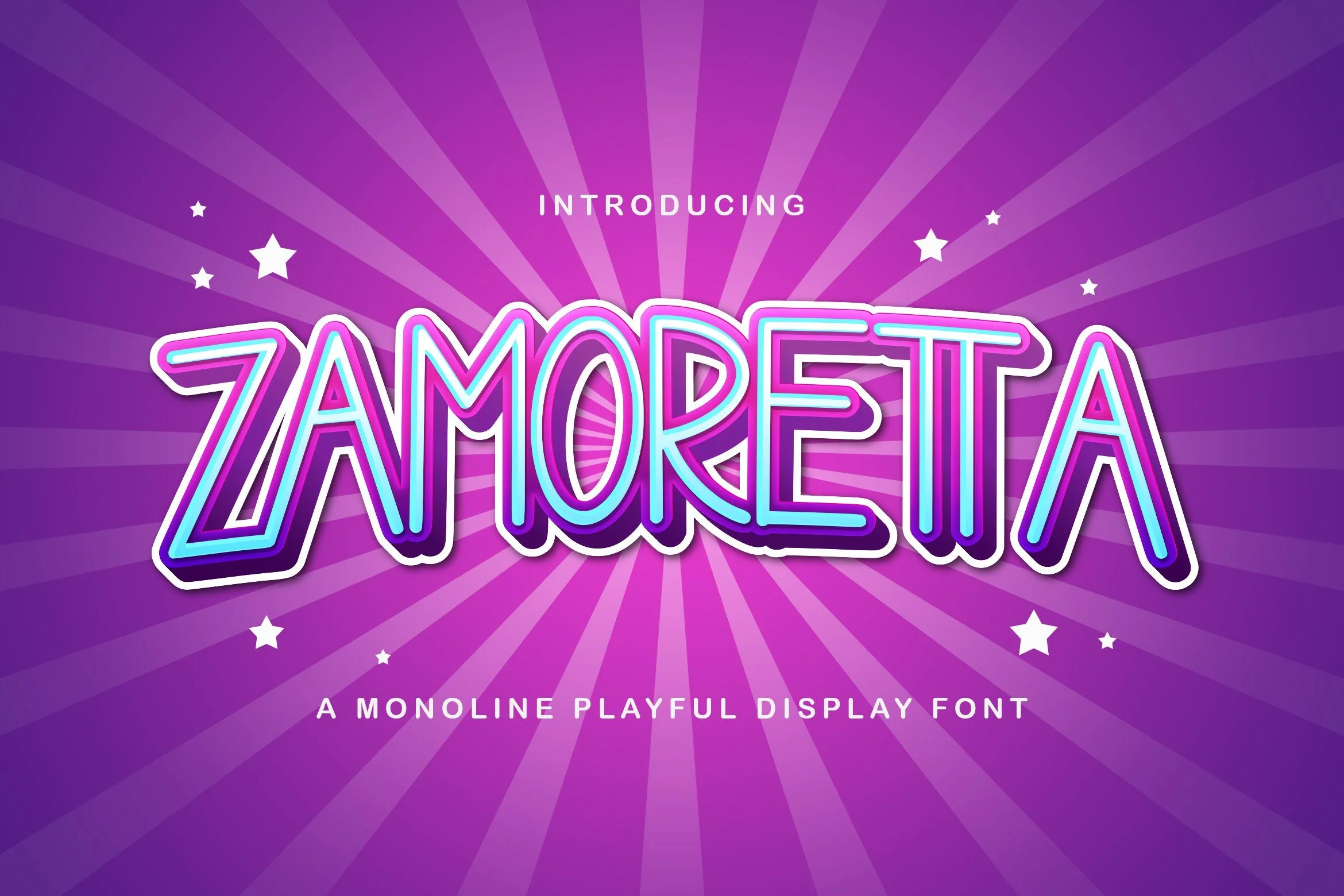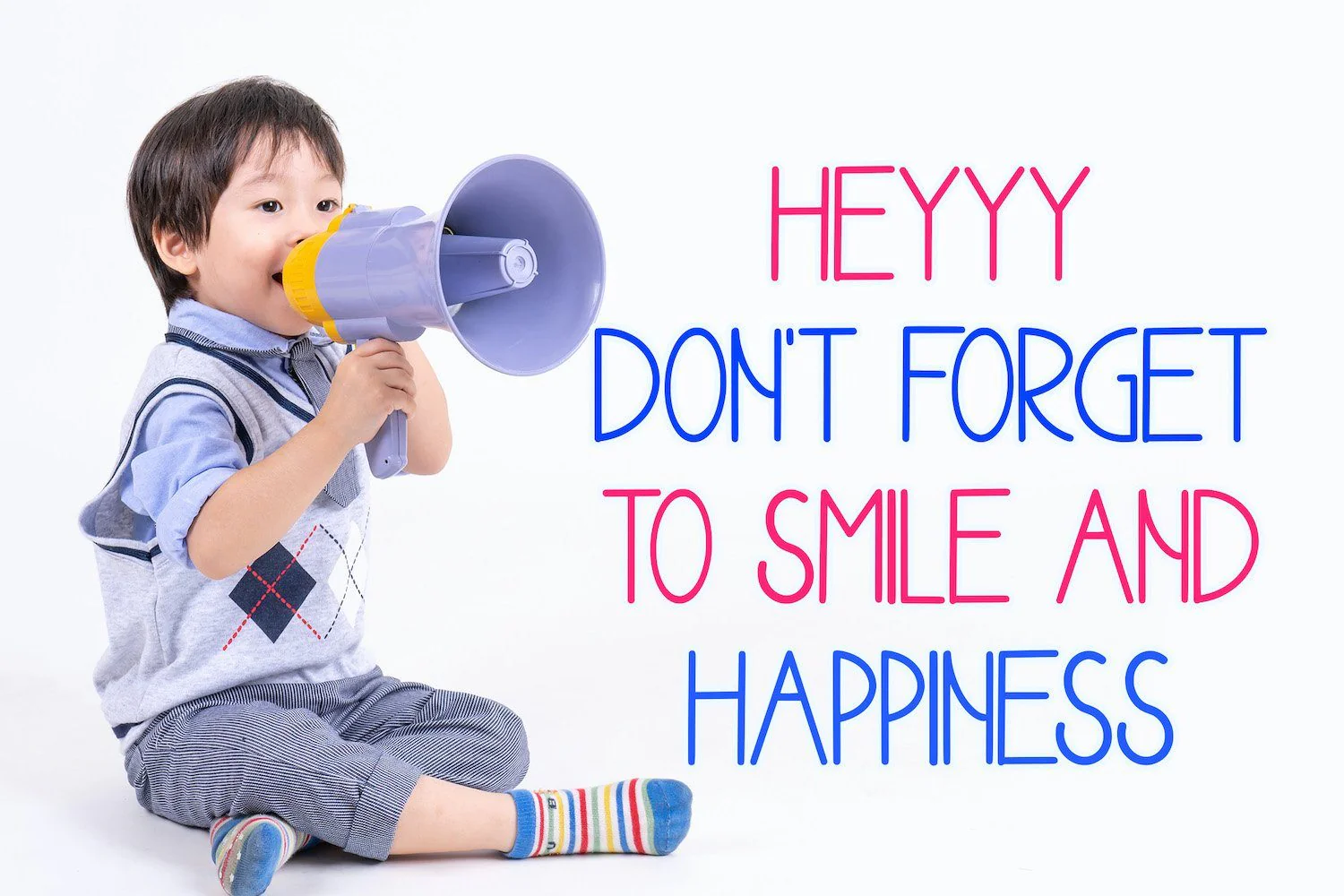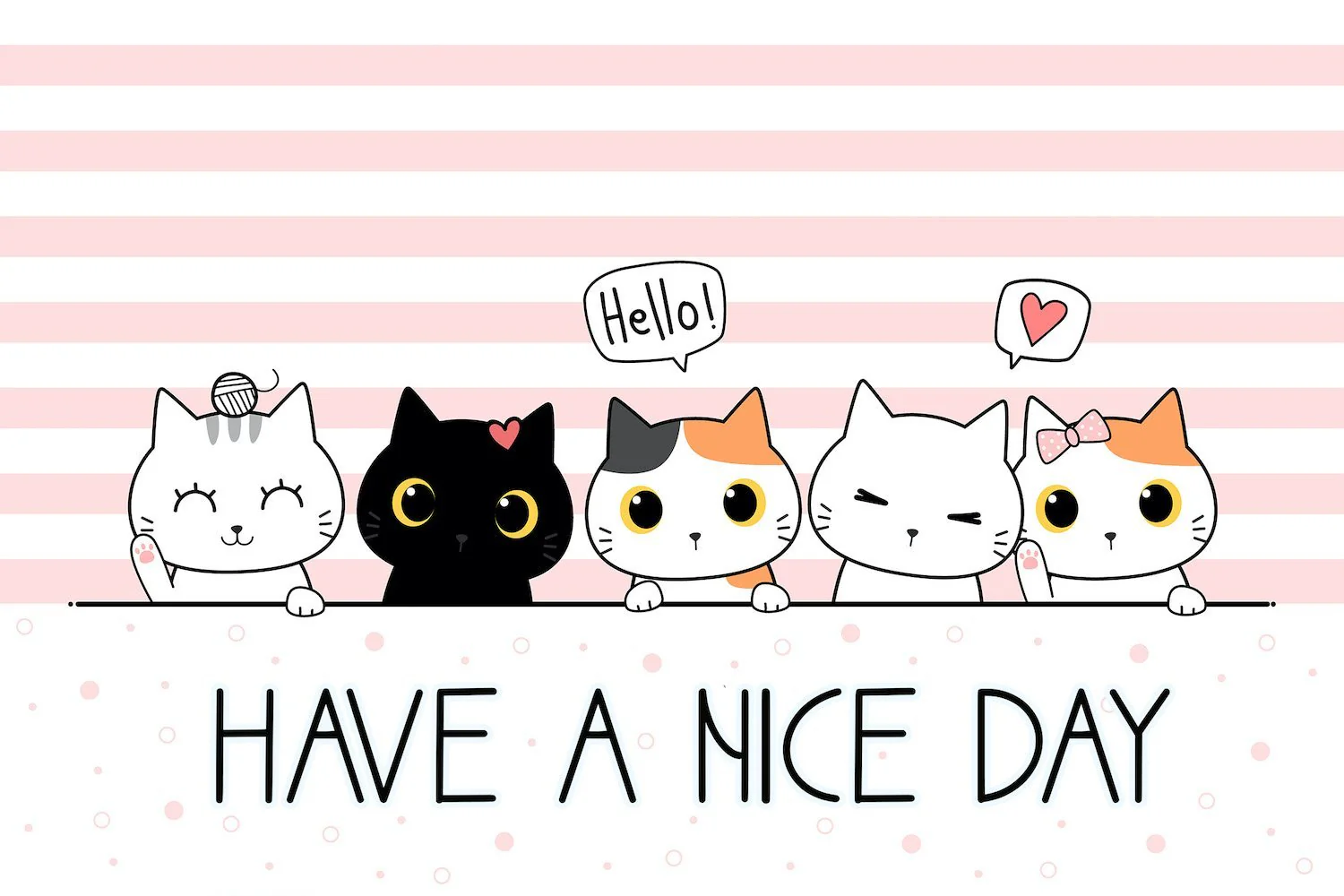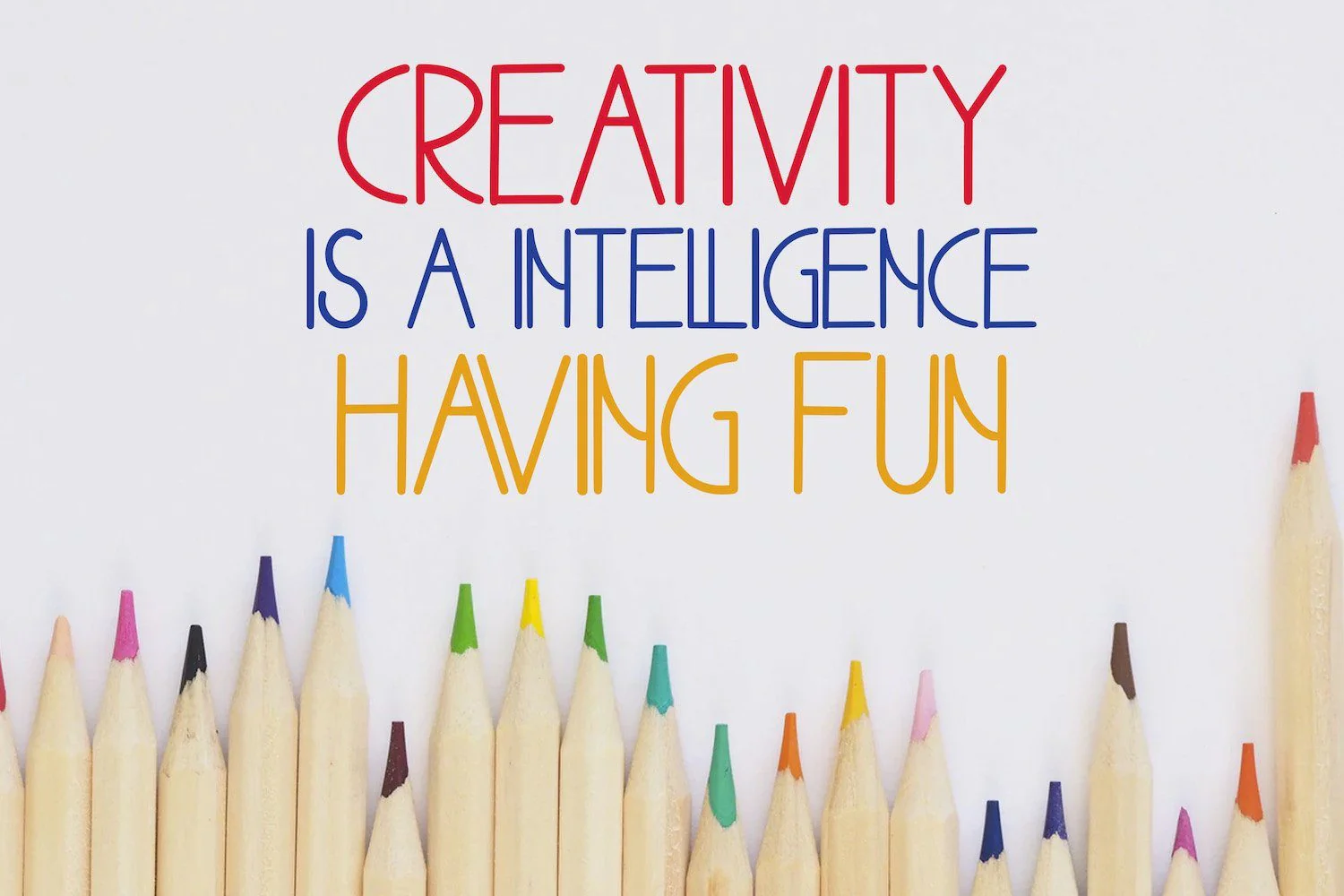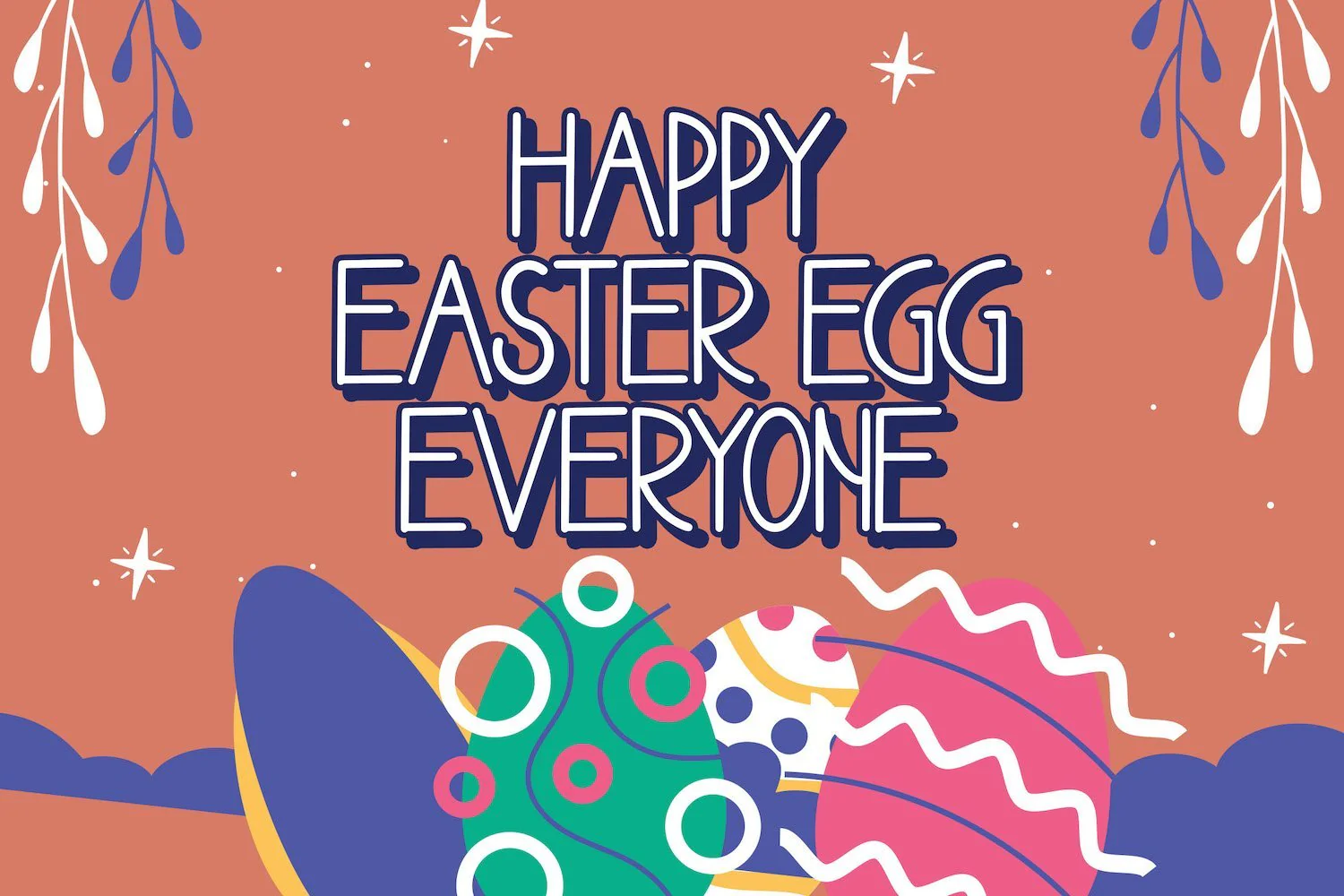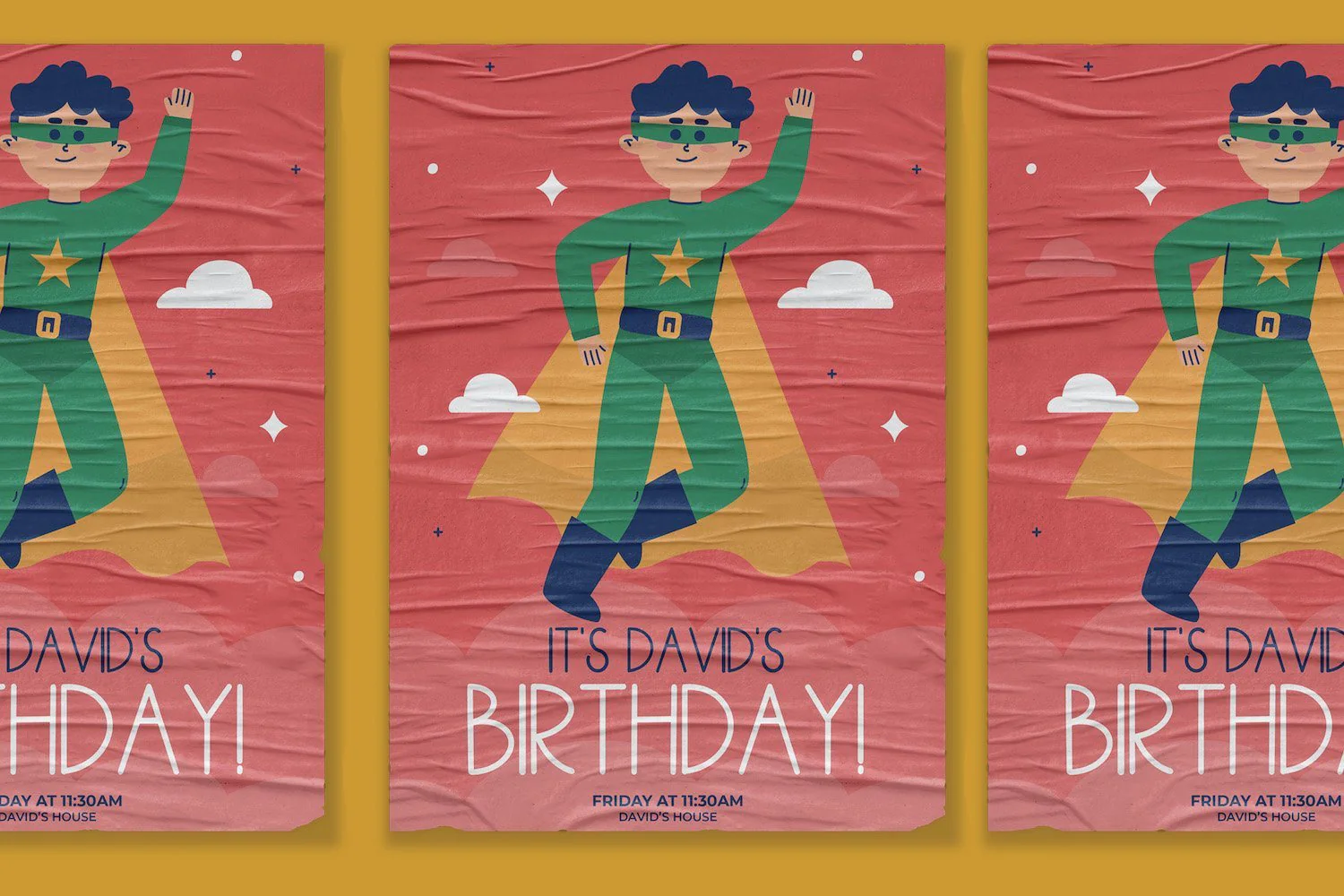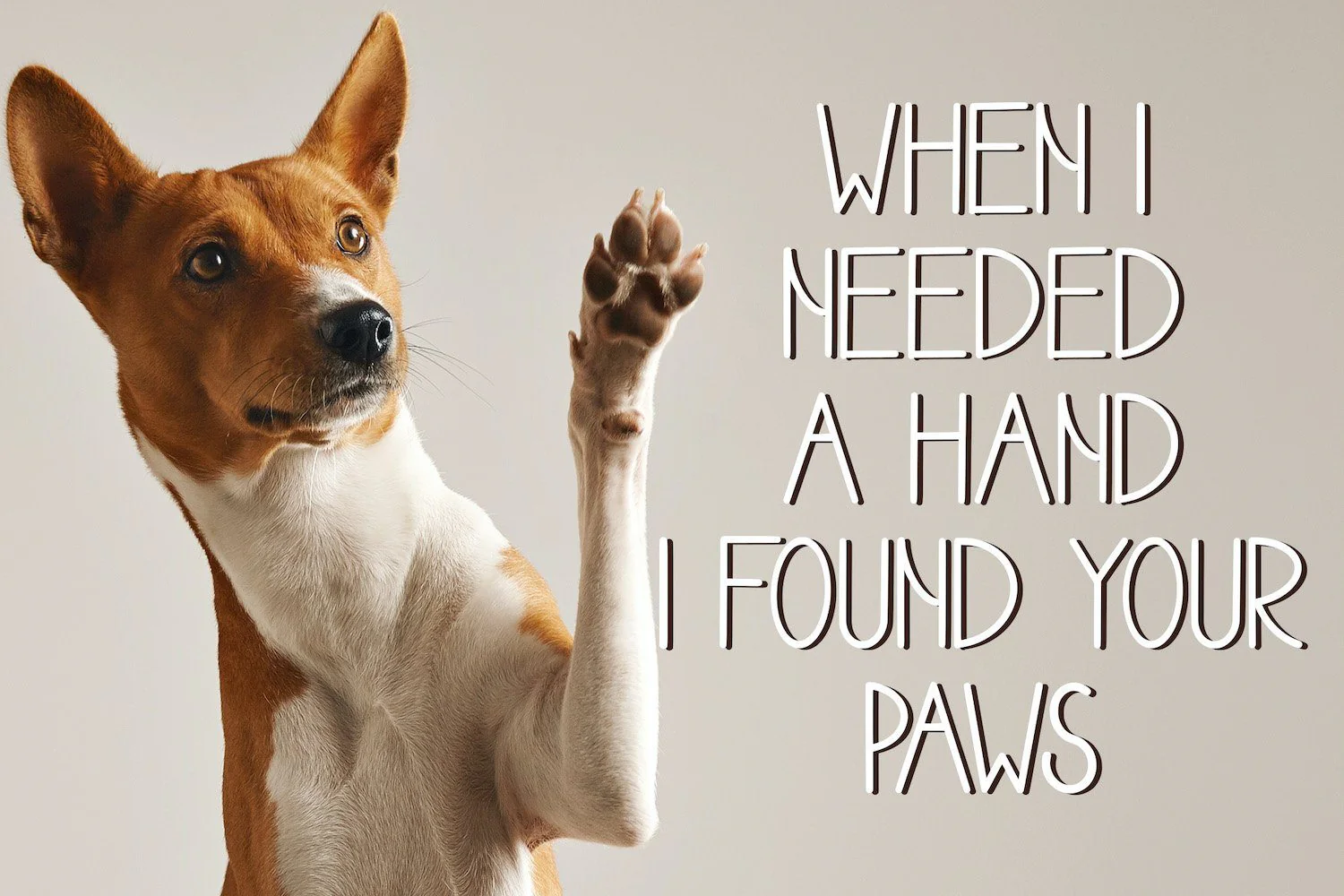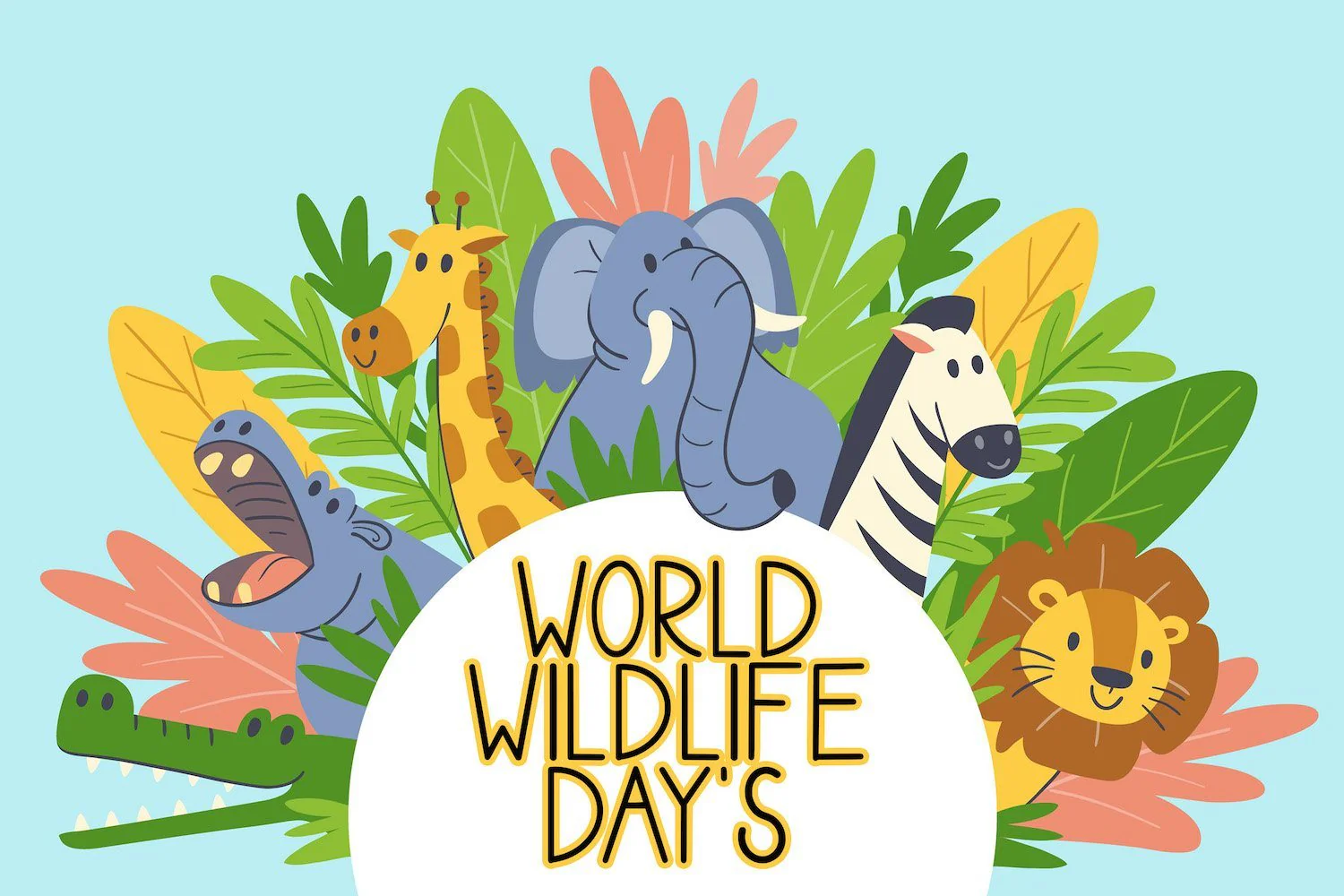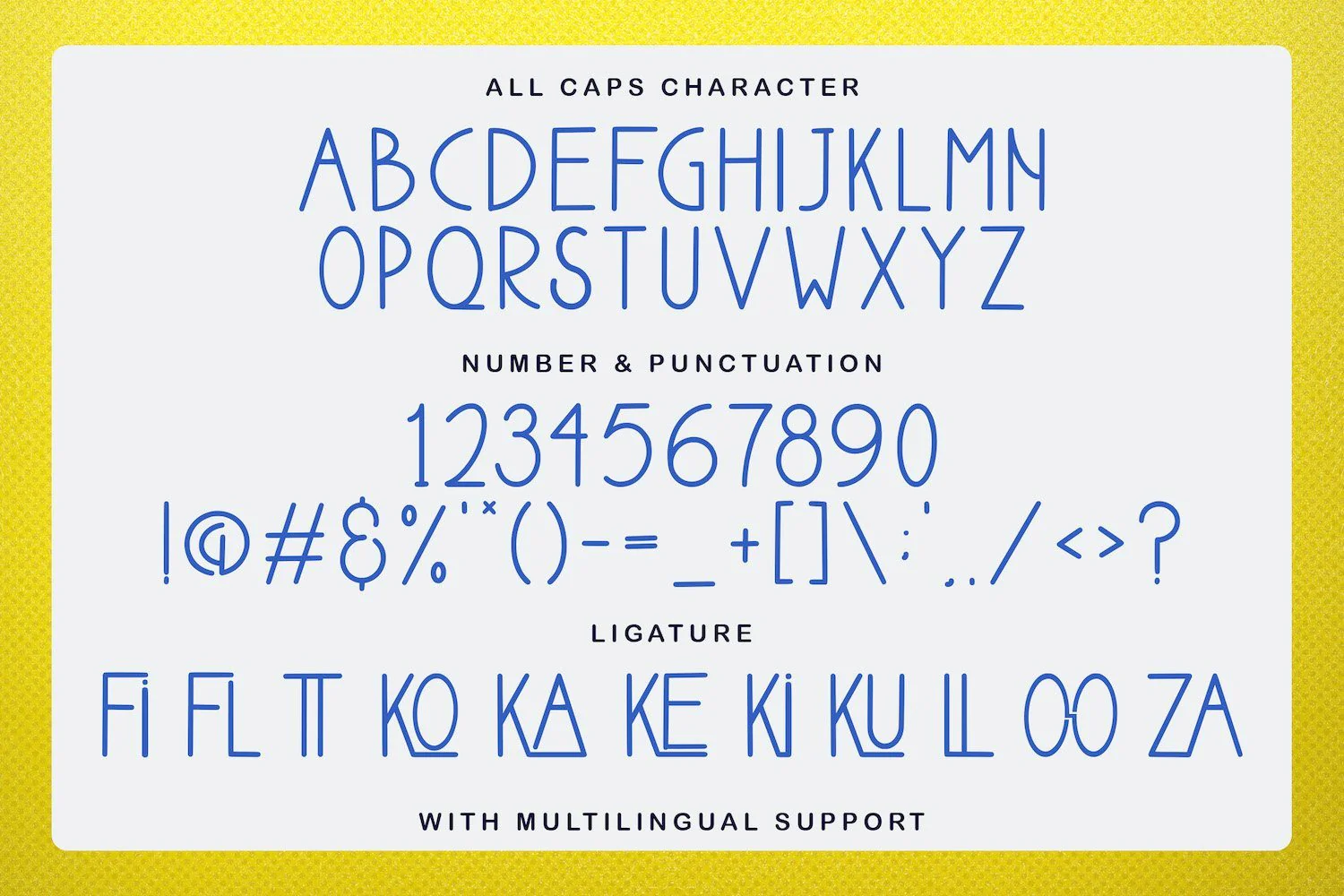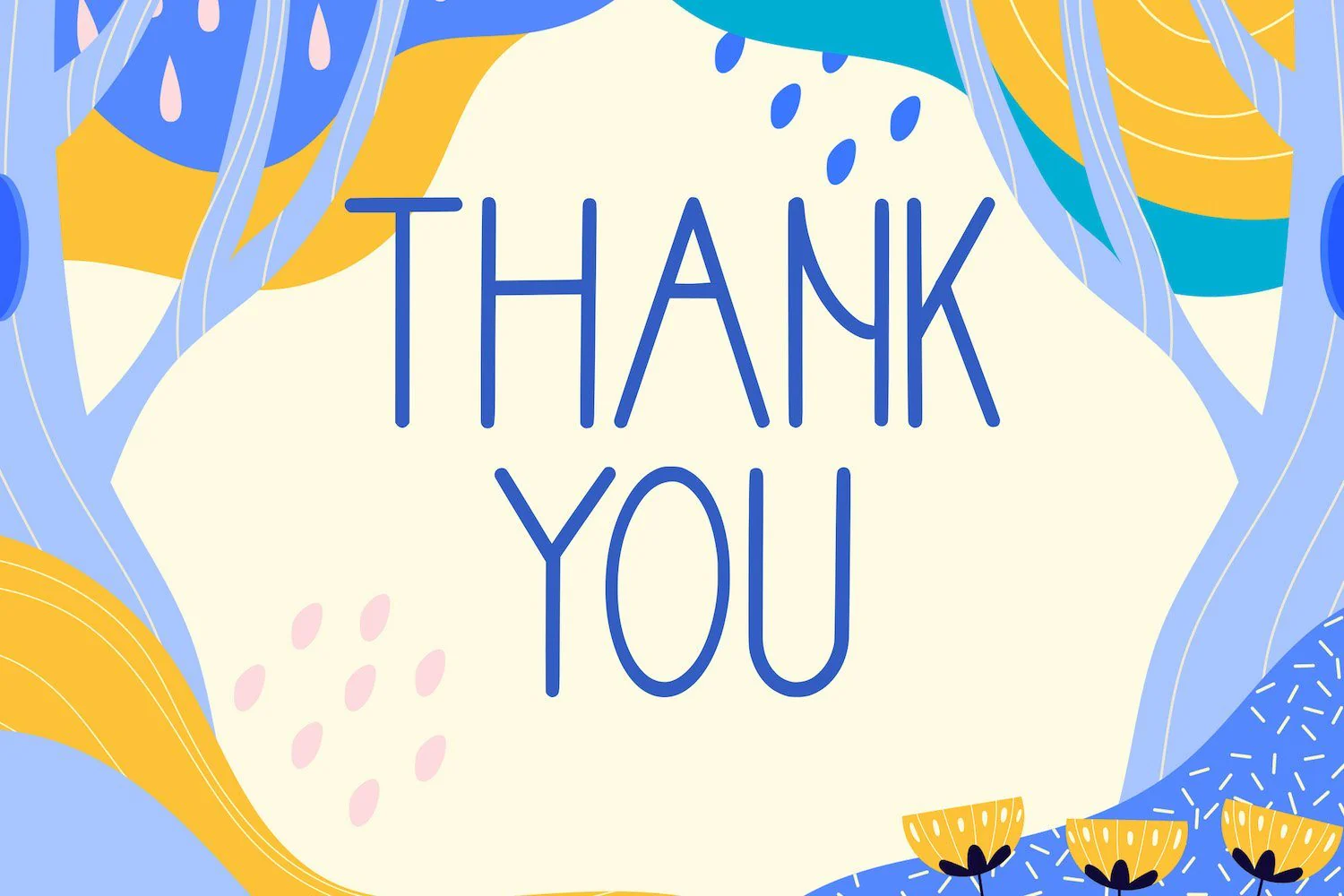
Zamoretta - Playful Display Font
Introducing Zamoretta - Playful Display Font
Zamoretta is a fun display font. Playful and fresh, this font will be a hit for each of your children or school projects!
Introducing Zamoretta - Playful Display Font
Zamoretta is a fun display font. Playful and fresh, this font will be a hit for each of your children or school projects!